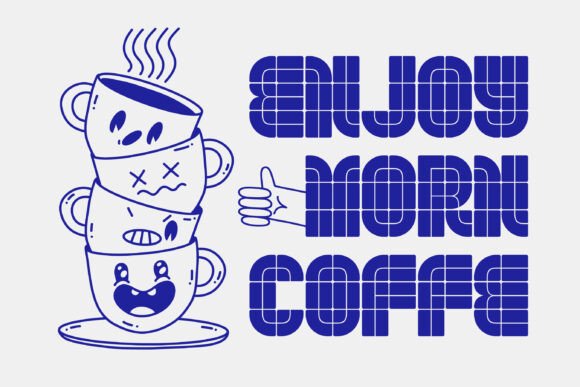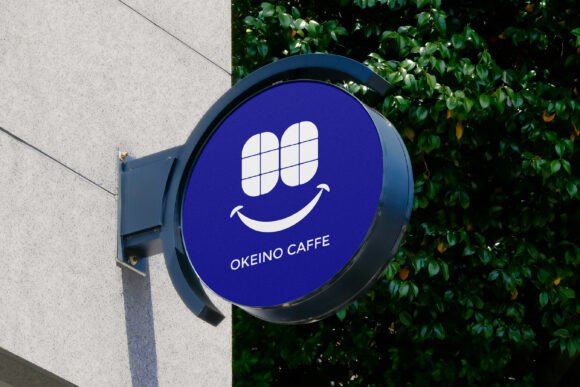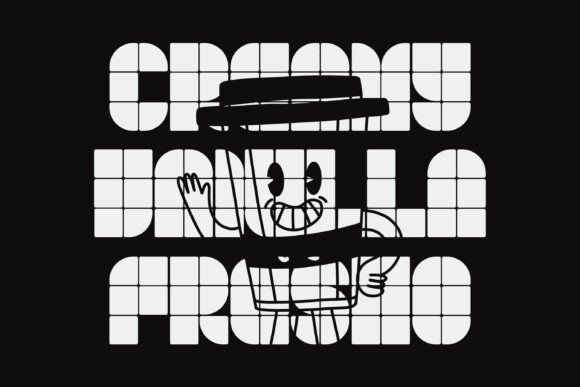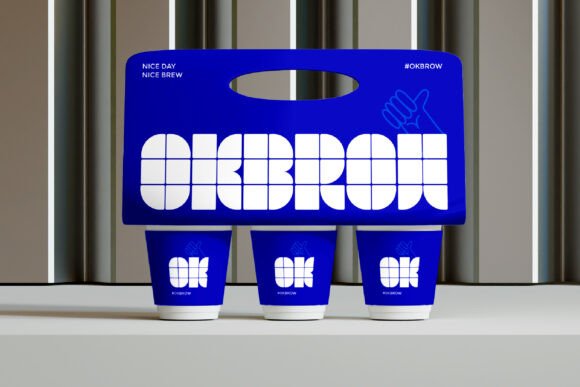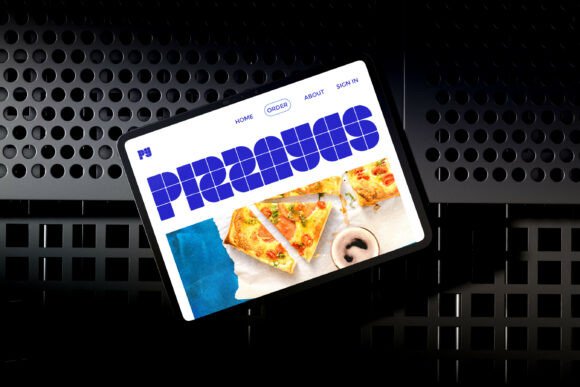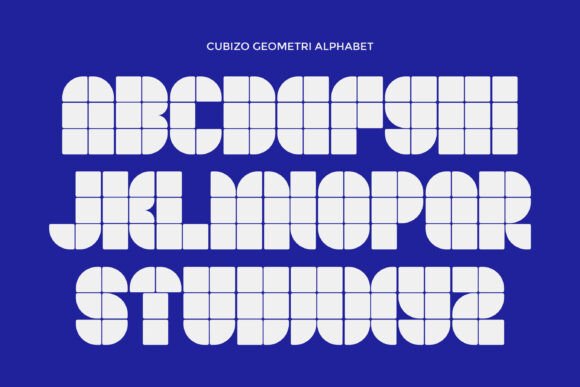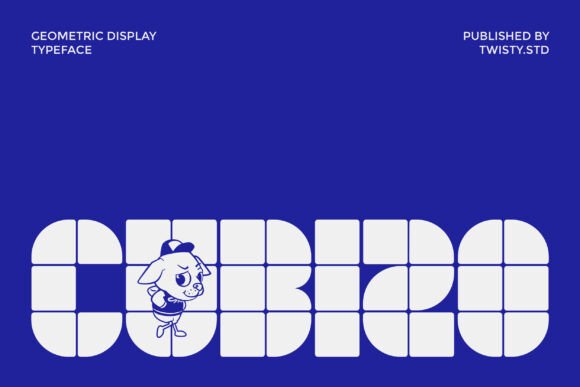
Cubizo Font: The Bold and Playful Typeface for Modern Designers
In the world of typography, a font can make or break a design. With thousands of options available, it can be challenging to find a typeface that stands out from the crowd. That’s where Cubizo comes in – a bold geometric display font that is built from modular shapes to create a fresh, playful, and highly distinctive look.
The Unique Features of Cubizo Font
Cubizo’s unique block-based construction gives every letter character and rhythm, making it perfect for designers who want to stand out with a fun yet modern aesthetic. The font’s modular shapes are carefully crafted to create a sense of movement and energy, making it ideal for headlines, titles, and other display text.
What Makes Cubizo Font So Special?
Cubizo’s distinctive look is achieved through its use of geometric shapes, which are carefully arranged to create a sense of playfulness and modernity. The font’s bold and chunky design makes it perfect for designers who want to add a touch of personality to their work. Whether you’re designing a logo, a poster, or a website, Cubizo is sure to make a statement.
- Attention-grabbing: Cubizo’s bold and playful design is sure to grab attention and make your design stand out from the crowd.
- Versatile: Cubizo can be used for a wide range of design projects, from logos and posters to websites and social media graphics.
- Easy to read: Despite its bold and chunky design, Cubizo is surprisingly easy to read, making it perfect for use in headlines and titles.
- Customizable: Cubizo’s modular design makes it easy to customize and modify to suit your design needs.
- Use it as a headline font: Cubizo is perfect for use in headlines and titles, where its bold and playful design can really make an impact.
- Experiment with different colors: Cubizo’s bold design looks great in a wide range of colors, so don’t be afraid to experiment and find the perfect color scheme for your design.
Cubizo font is a bold and playful typeface that is perfect for designers who want to stand out with a fun yet modern aesthetic. Its unique block-based construction gives every letter character and rhythm, making it perfect for use in headlines, titles, and other display text. Whether you’re a graphic designer, crafter, or web designer, Cubizo is sure to be a valuable addition to your design toolkit.